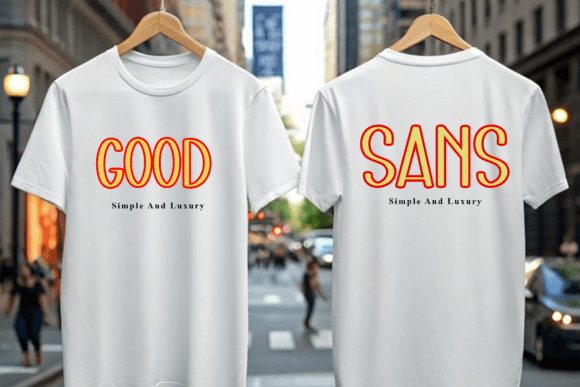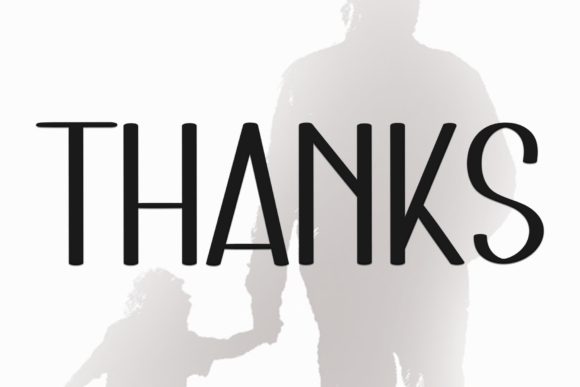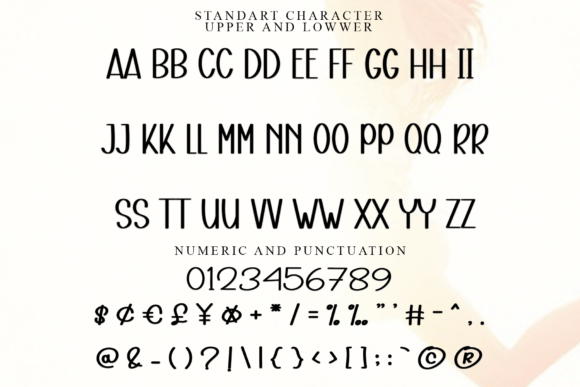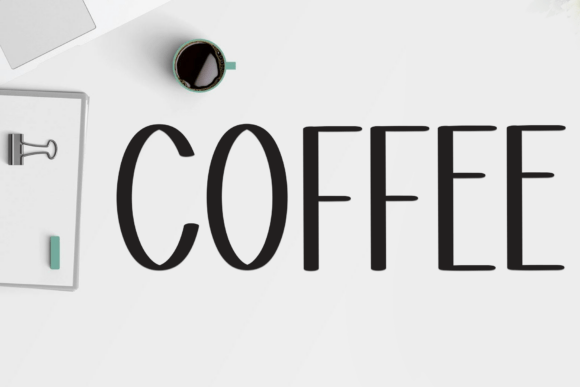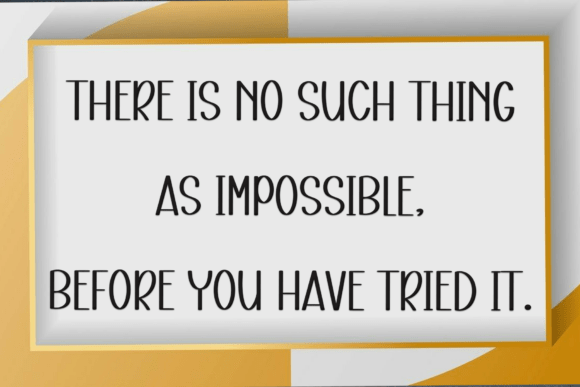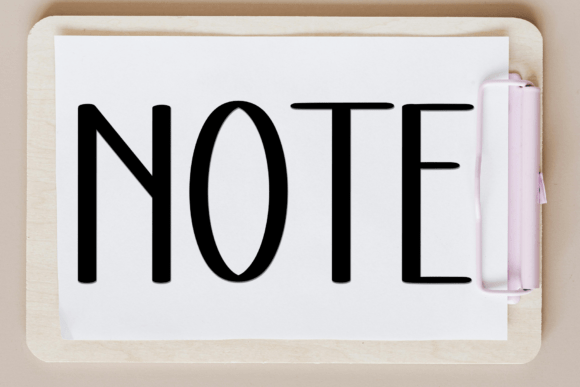
Introducing Heart Words Font: The Perfect Choice for Designers and Crafters
In the world of typography, fonts play a crucial role in conveying emotions and adding personality to designs. If you’re a designer or crafter looking for a unique and eye-catching font to elevate your creative projects, look no further than Heart Words Font. This beautiful font is designed with a soft, distinctive touch that sets it apart from other fonts, making it perfect for a wide range of applications.
The Unique Characteristics of Heart Words Font
Heart Words Font boasts distinctive strokes that give it a special character, making it both meaningful and versatile. Its unique design ensures that your designs stand out from the crowd, capturing the attention of your audience. Whether you’re working on a design project, craft, or other creative work, Heart Words Font is the perfect choice. With a wide range of characters, you can experiment with different combinations to create something truly unique.
Heart Words Font is specifically designed to be compatible with various applications, including Windows and open-source platforms. This natural font style is ideal for a wide range of products, from digital designs to handmade crafts. Whether you’re creating a logo, brochure, or social media graphics, Heart Words Font will enhance your designs, making them appealing to many audiences across different artistic and creative fields.
Key Features of Heart Words Font
- Unique and eye-catching design: Heart Words Font features distinctive strokes that give it a special character.
- Versatile and meaningful: Perfect for a wide range of design projects, crafts, and creative works.
- Wide range of characters: Experiment with different combinations to create something truly unique.
- Ideal for design projects and crafts: Perfect for logos, brochures, social media graphics, and handmade crafts.
Why Choose Heart Words Font?
As a designer or crafter, you understand the importance of typography in creating visually appealing designs. Heart Words Font offers a unique and eye-catching alternative to traditional fonts, allowing you to add a personal touch to your creations. Its versatility and compatibility with various applications make it an excellent choice for a wide range of projects.
Tips for Using Heart Words Font
To get the most out of Heart Words Font, here are some tips:
- Experiment with different sizes and colors: Find the perfect combination to match your design.
- Pair with other fonts: Create a unique contrast by pairing Heart Words Font with other fonts.
- Use in combination with images: Add an extra layer of depth to your designs by combining Heart Words Font with images.
Heart Words Font is a beautiful and eye-catching font designed to add a personal touch to your designs. Its unique characteristics, versatility, and compatibility with various applications make it an excellent choice for designers and crafters. Whether you’re working on a design project, craft, or other creative work, Heart Words Font is the perfect choice. Download Heart Words Font today and take your designs to the next level!